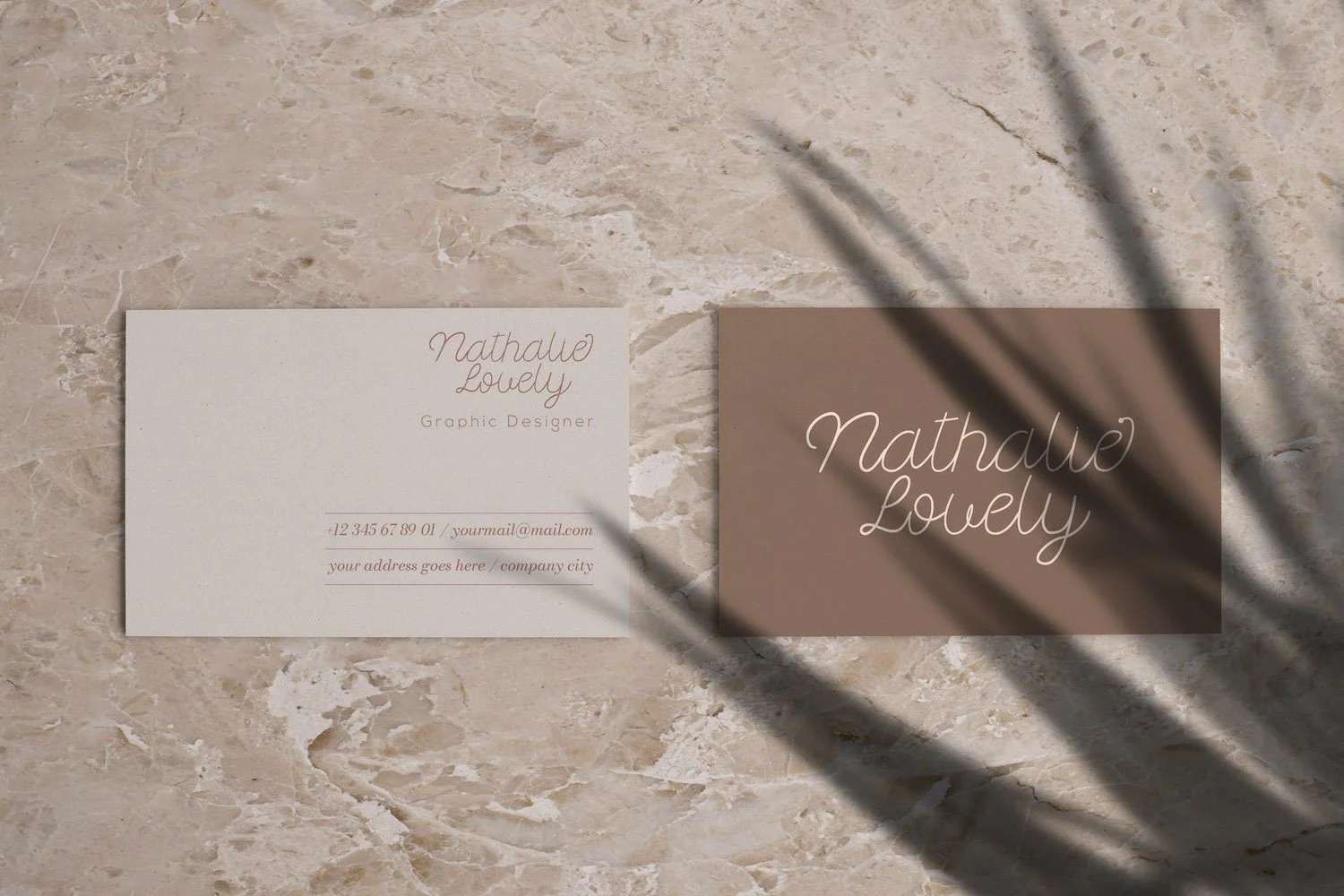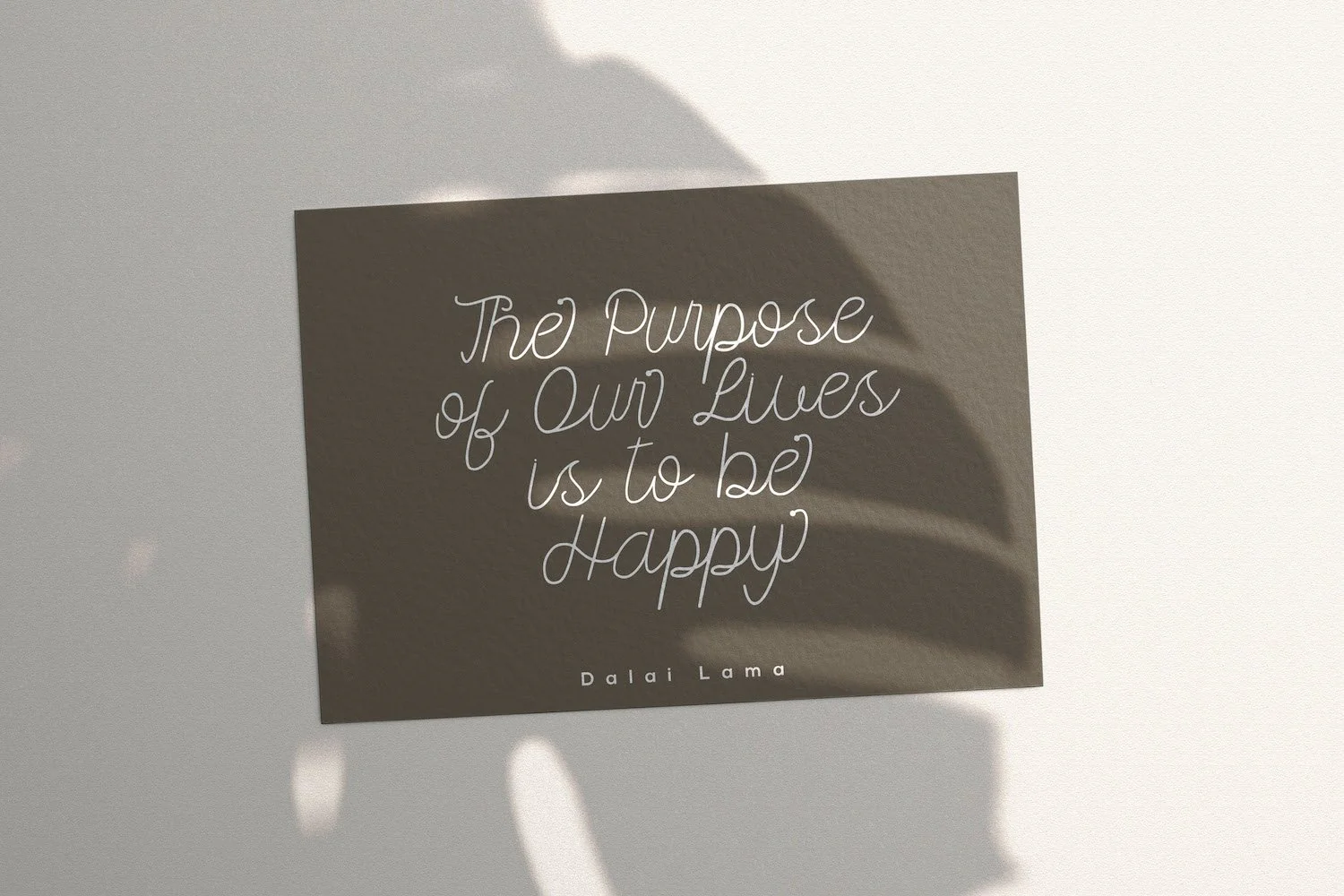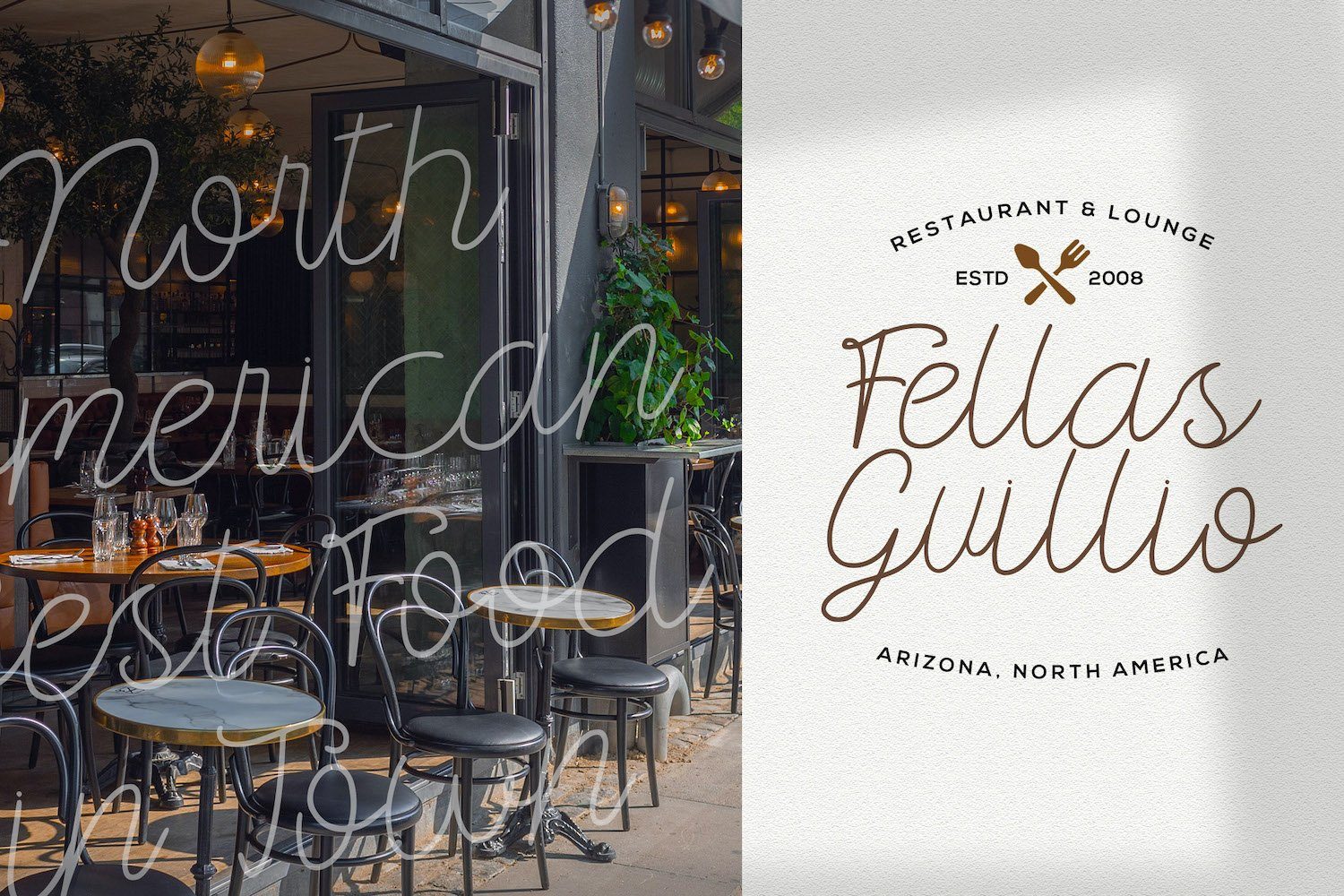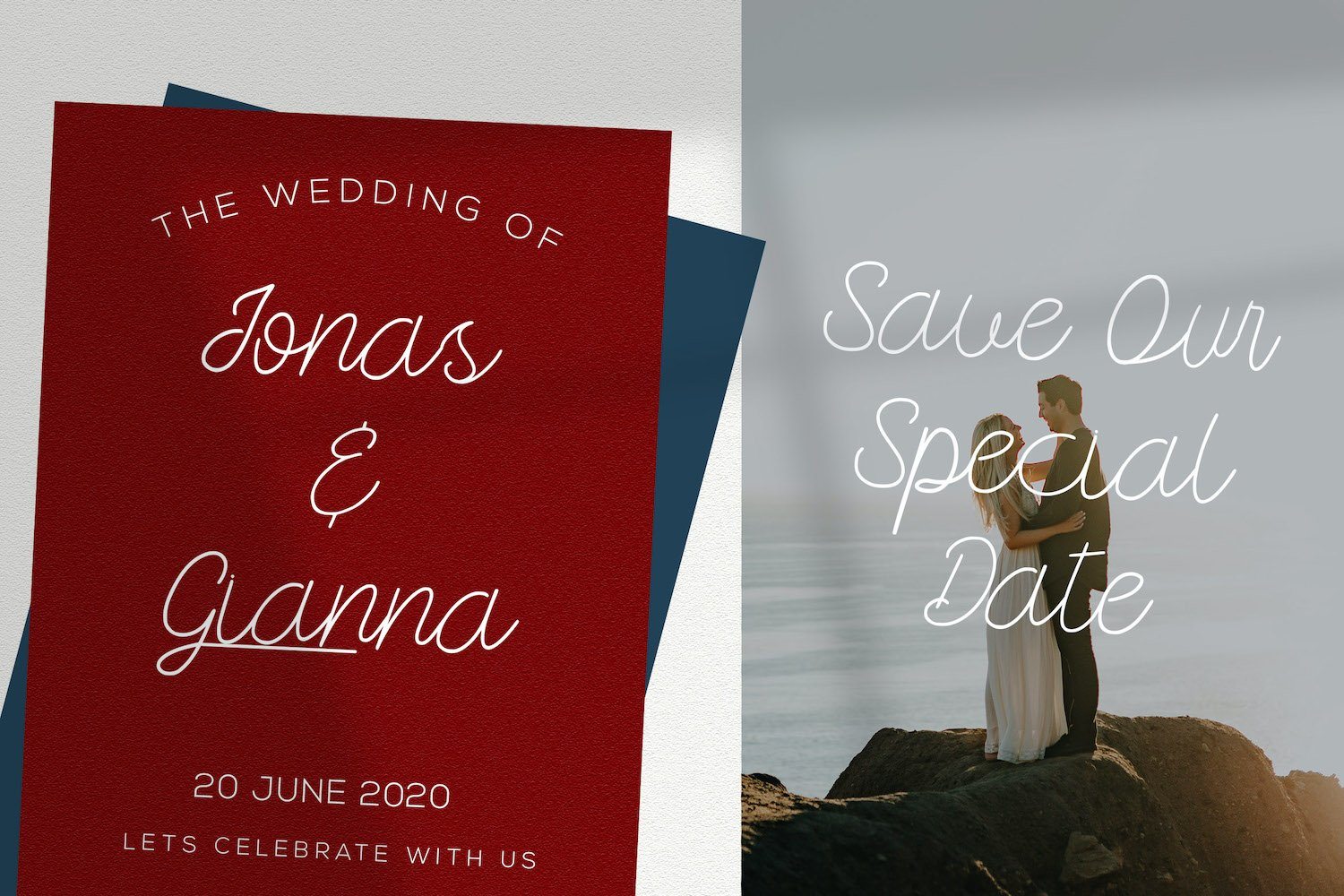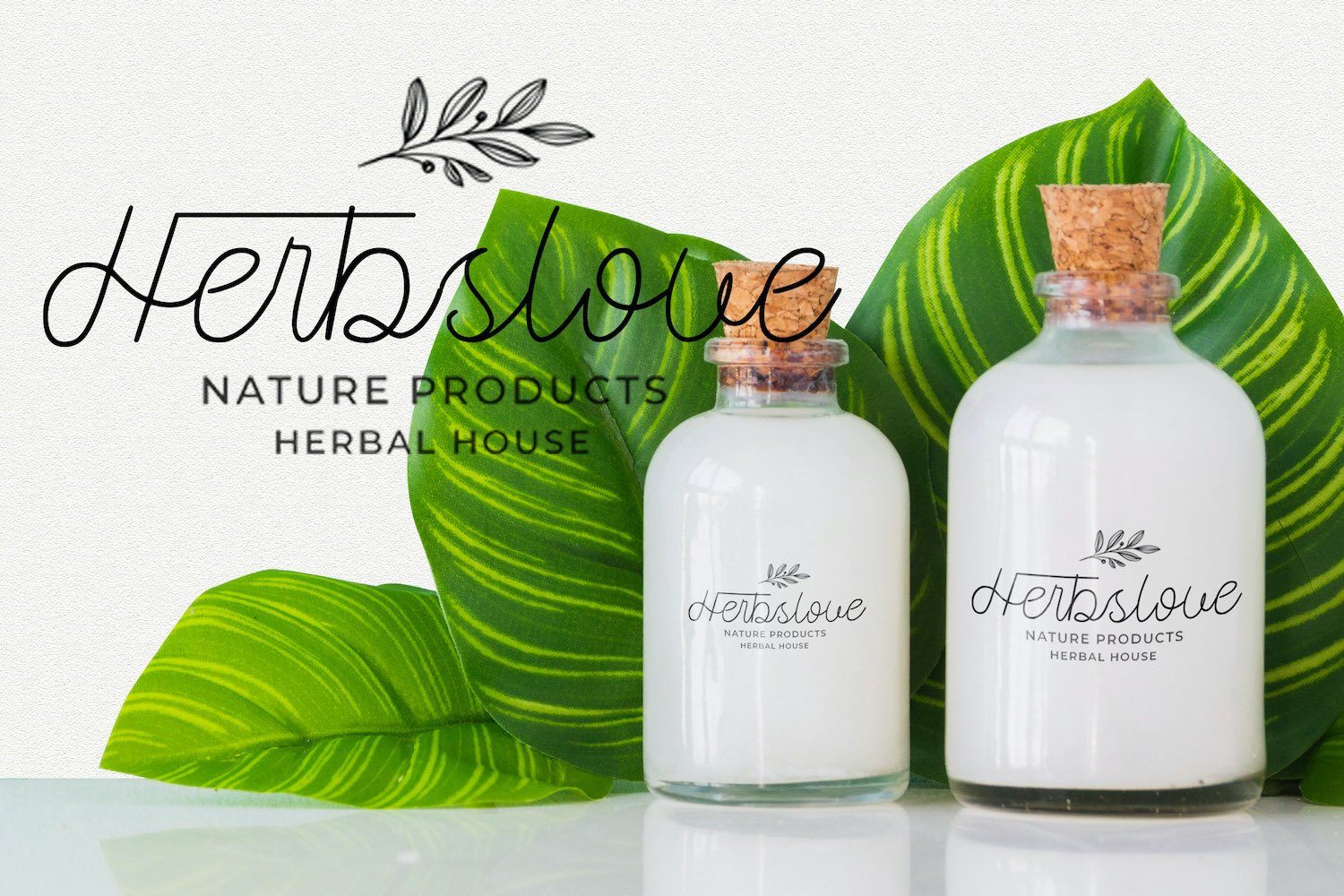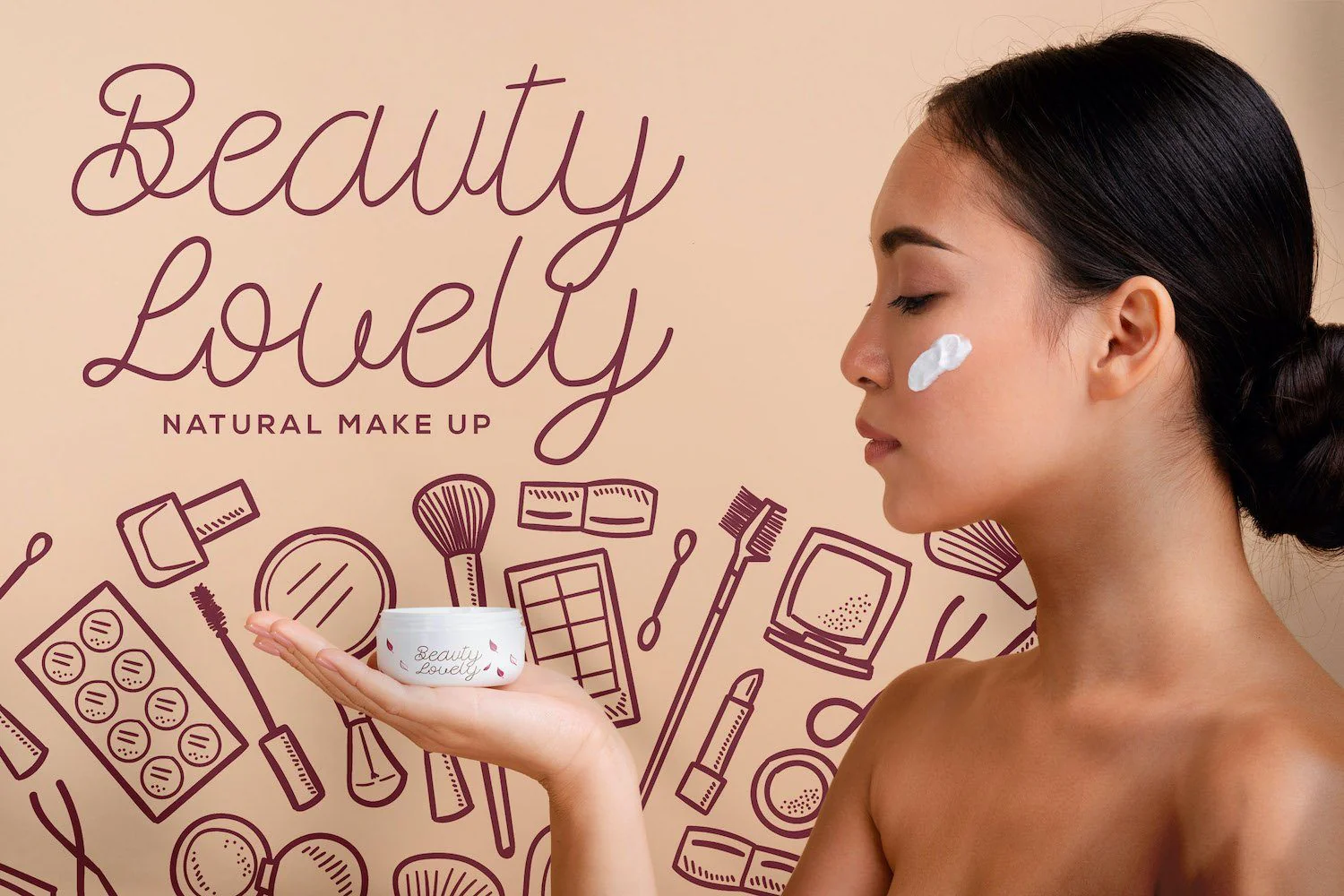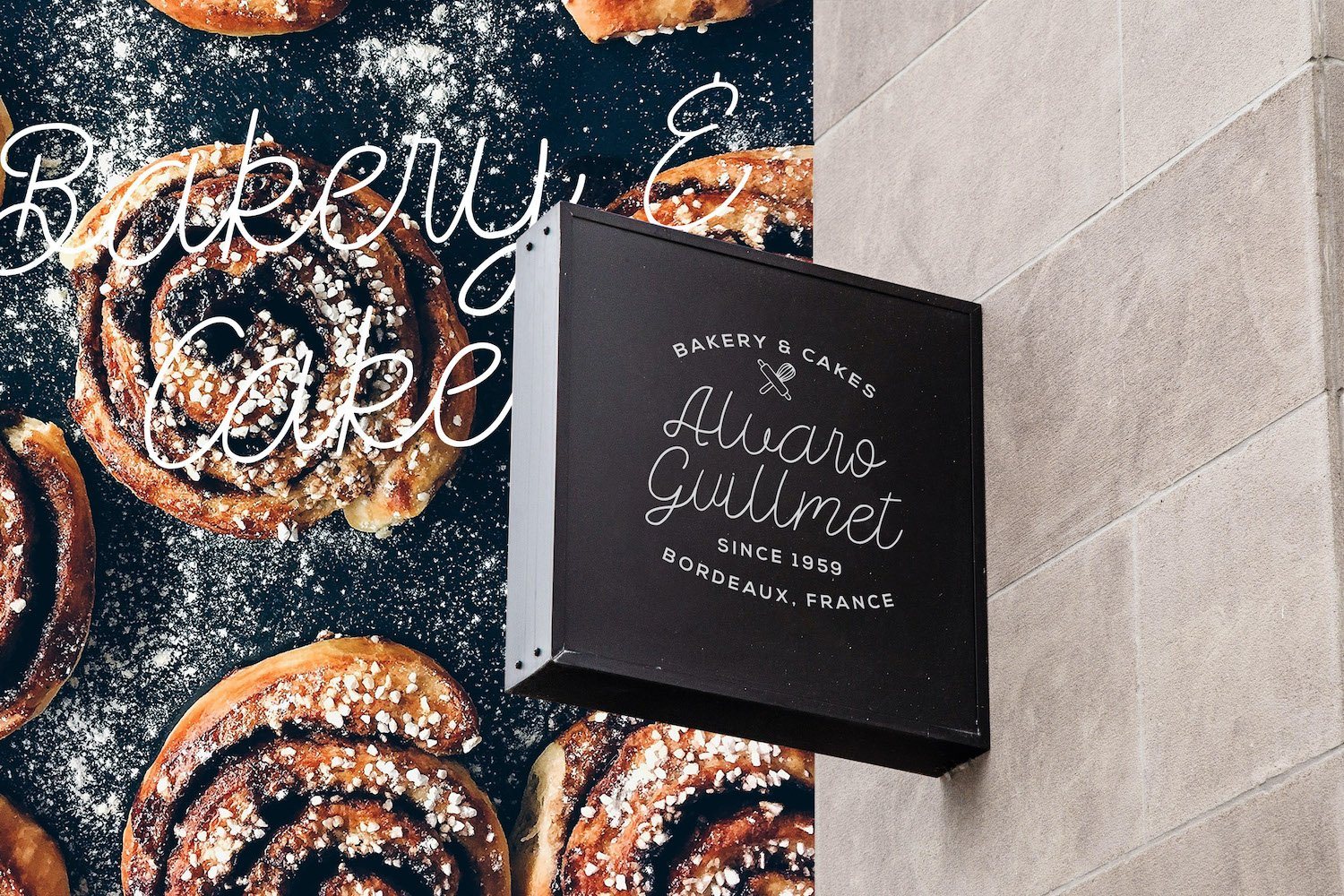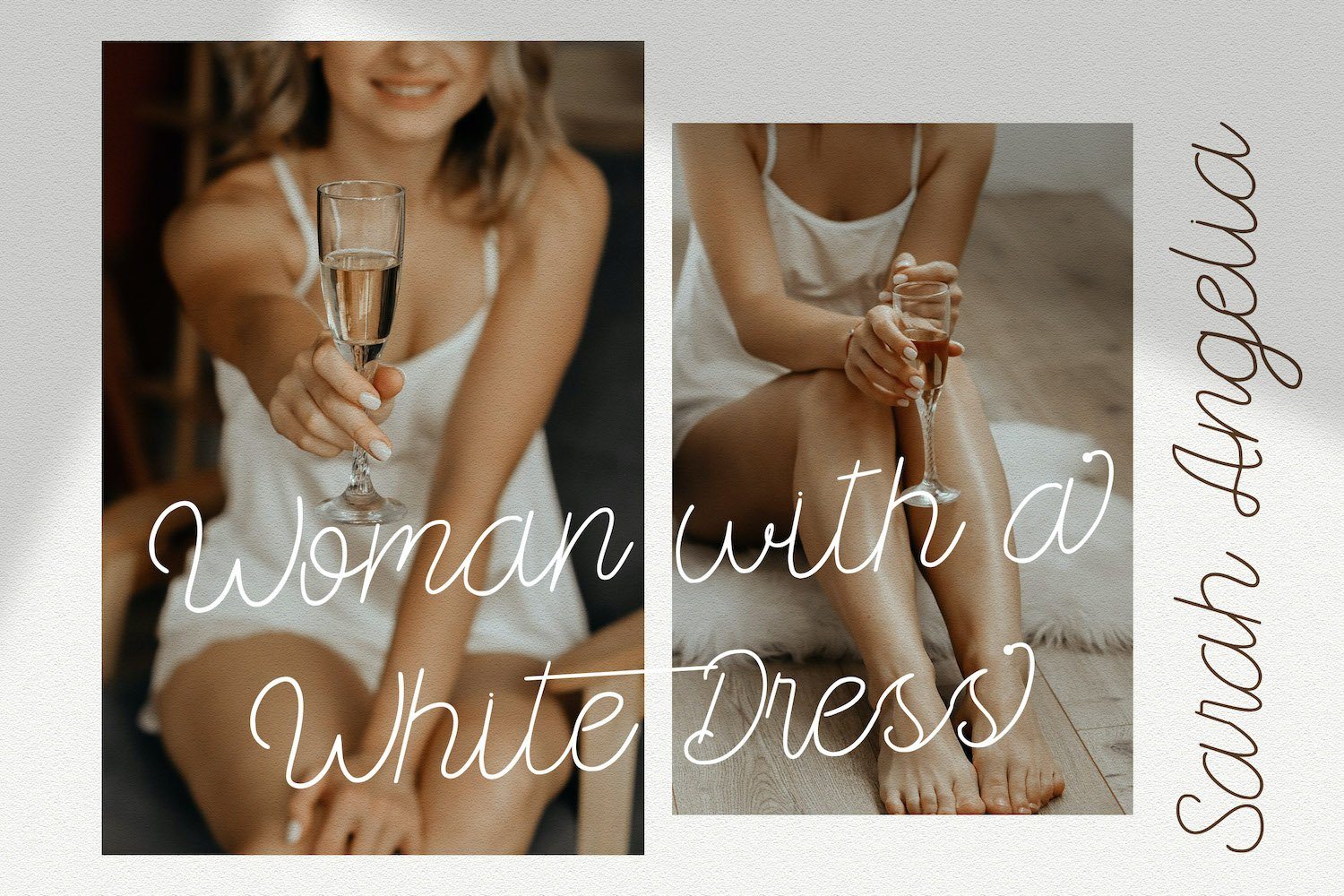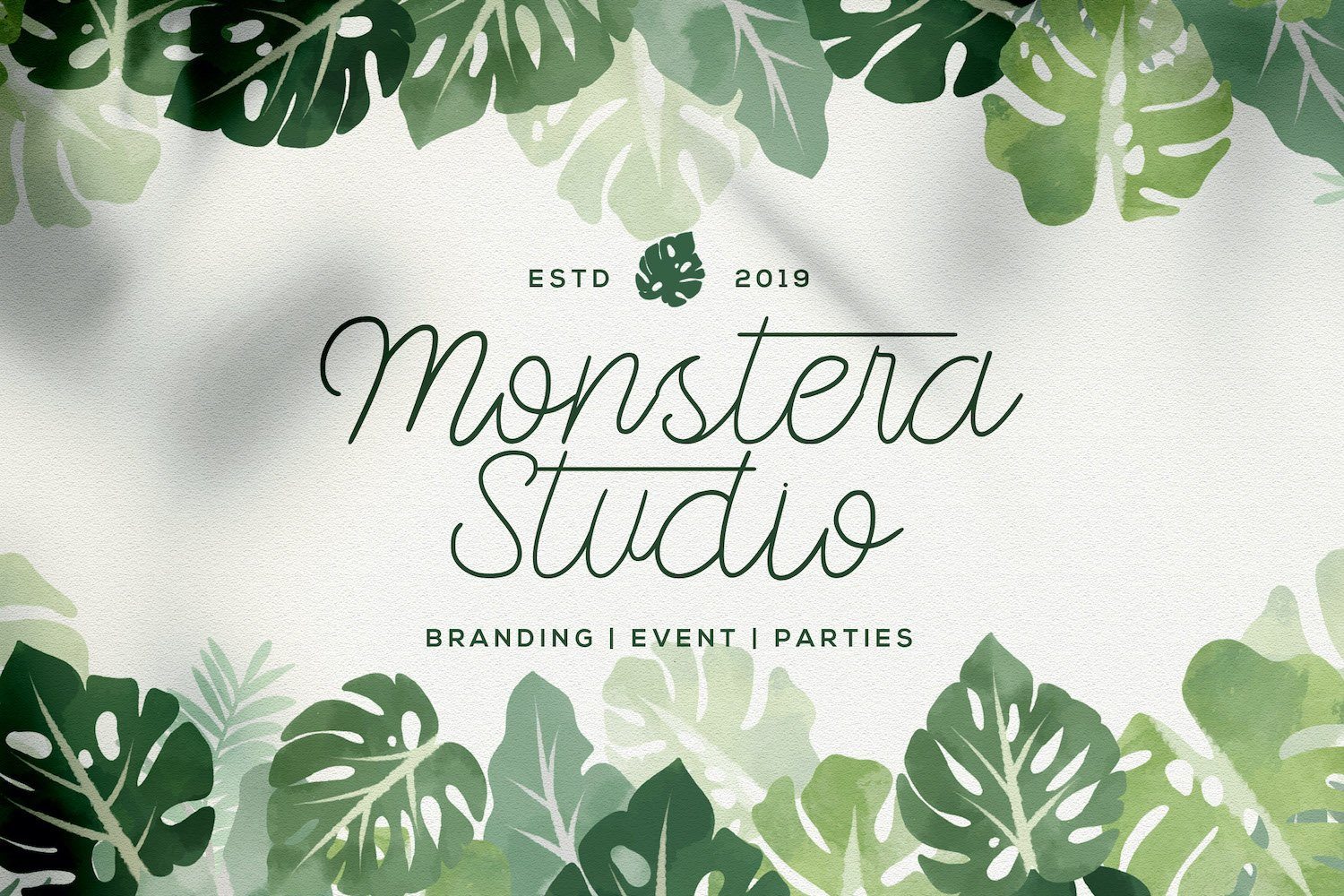
Kangtoni - Monoline Script Font
Introducing Kangtoni - Monoline Script Font
Kangtoni is a unique and delicate handwritten font. Fall in love with its incredibly distinct and timeless style and use it to create spectacular designs!
Introducing Kangtoni - Monoline Script Font
Kangtoni is a unique and delicate handwritten font. Fall in love with its incredibly distinct and timeless style and use it to create spectacular designs!